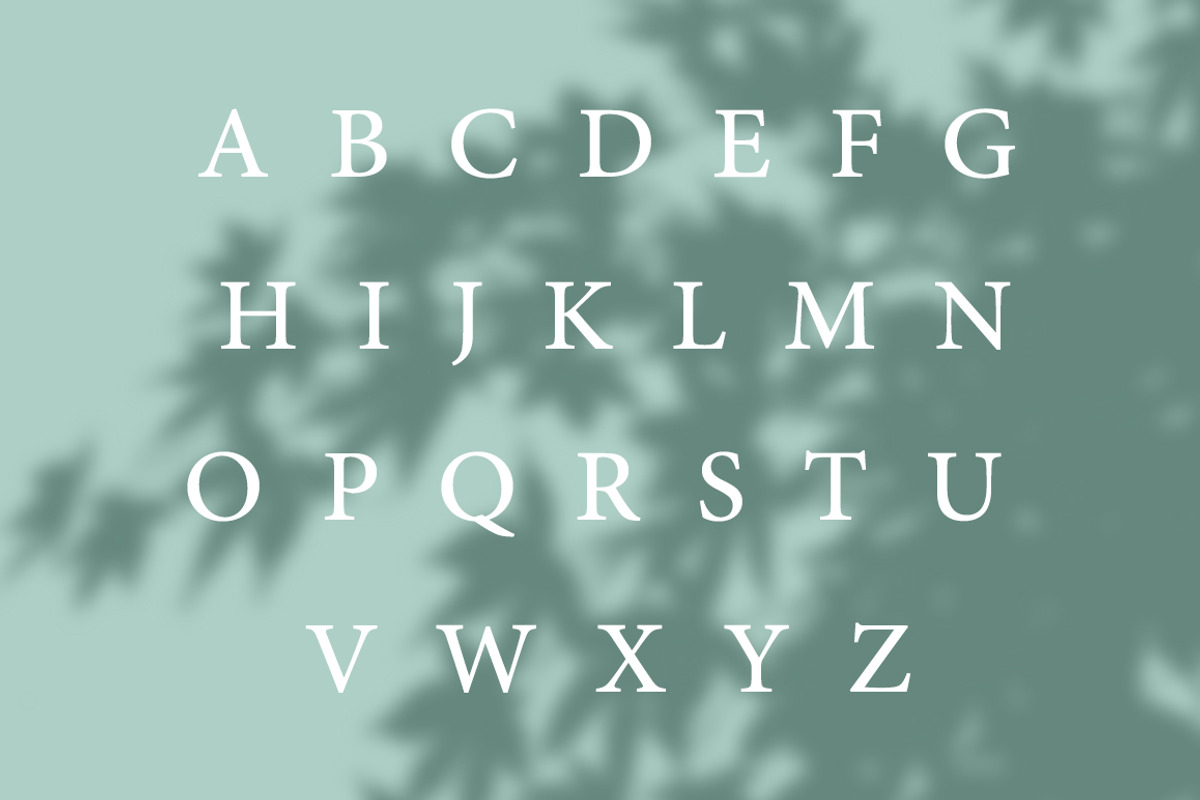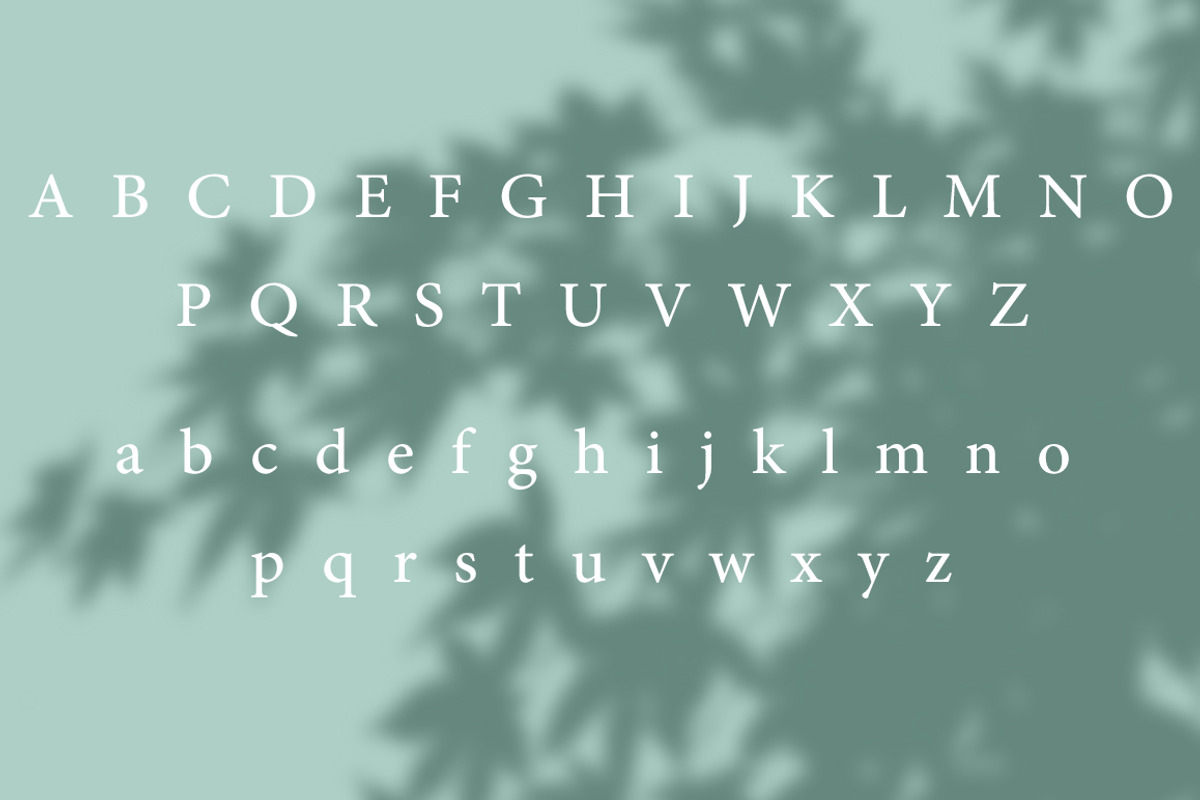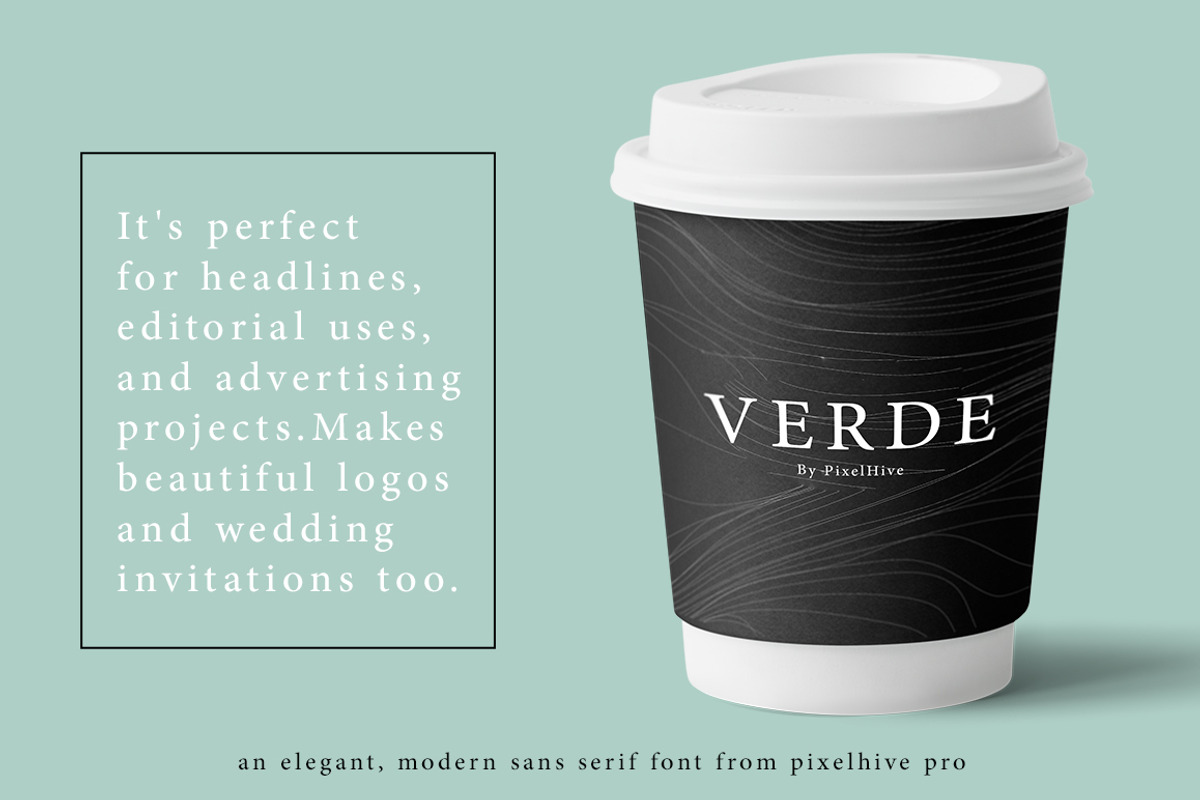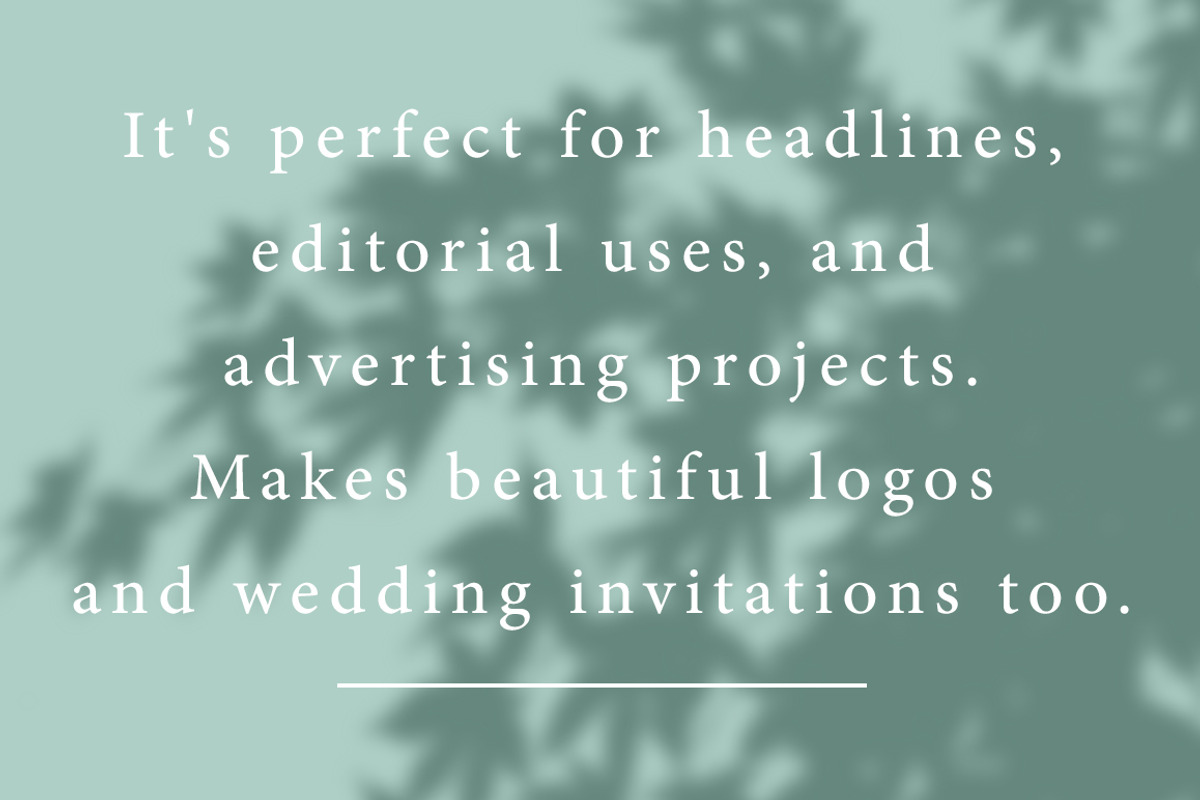
Verde Elegant Modern Font
Introducing our new font Verde Elegant Modern Font
Verde a is a Minimalist Modern Elegant font with beautiful ligatures, tons of special alternative glyphs, and multilingual support. It's a very versatile font that works great in large and small sizes. Verde is perfect for branding projects, Logo design, Clothing Branding, product packaging, magazine headers, or simply as a stylish text overlay to any background image. It’s perfect for headlines, editorial uses, and advertising projects. Makes beautiful luxe logos and wedding invitations, too.
Verde is an elegant, modern sans serif font. Meticulously drawn with high contrast between thick and thin strokes with the goal of making even the simplest sans serif letters look sensual, elegant, and warm.
Stylistic Alternates & Ligatures
Why Verde Elegant Modern Font is worth a look